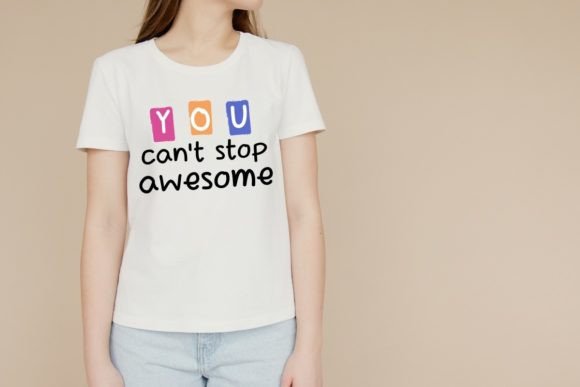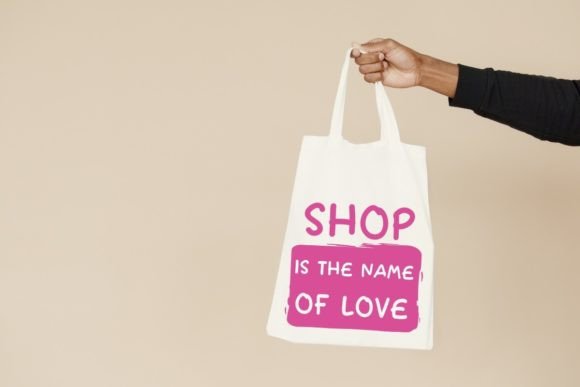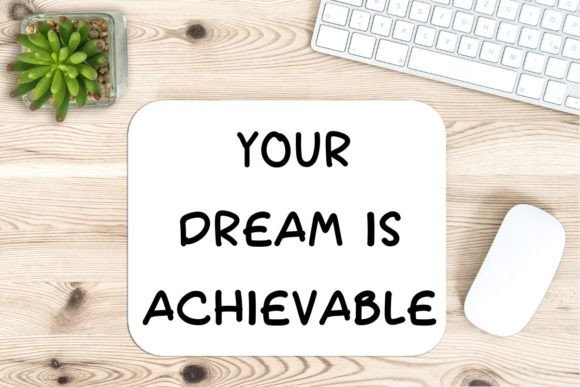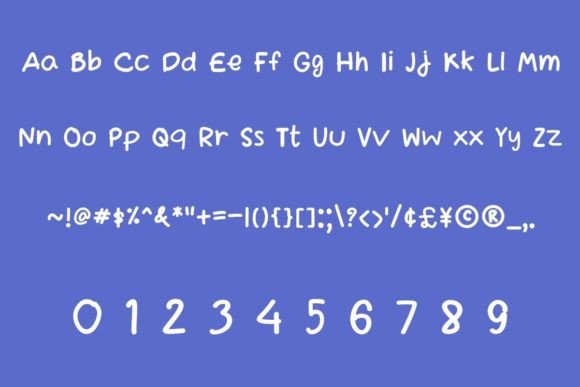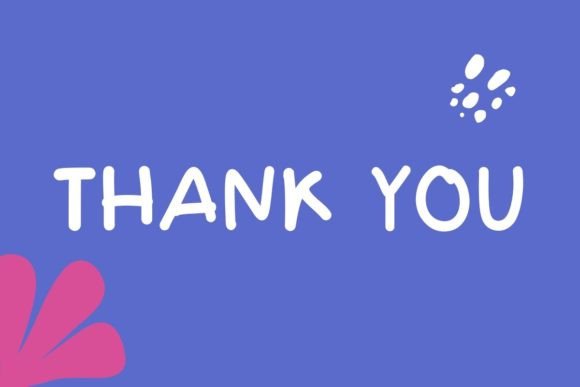
Introduction to Introvert Font
As I sat at my desk, surrounded by scraps of paper and half-finished projects, I stumbled upon the perfect font to bring my creative vision to life – the Introvert Font. There’s something special about discovering a font that captures the essence of your design style, and for me, this handwritten beauty was the perfect match.
Whether you’re a seasoned designer or a DIY enthusiast, the Introvert Font is a valuable addition to your design resource library. Its informal style and casual vibe make it an ideal choice for a wide range of creative projects, from custom mug designs to interior prints. And the best part? It’s available for free download, making it a high-quality resource that won’t break the bank.
With its transparent background and versatile design, the Introvert Font is a game-changer for designers looking to add a personal touch to their work. From shirts and hats to tote bags and wall art, this font is the perfect tool to help you bring your ideas to life.
Key Features of Introvert Font
- Unique, hand-drawn design with a high level of detail, making it a great design resource for creative projects.
- Perfect for designers looking for a unique, high-quality font to add a personal touch to their creative project.
Honest Review: Introvert Font
I recently had the chance to work with the Introvert Font in a creative project, and I’m excited to share my honest thoughts. As a designer, I appreciate high-quality fonts that make a statement, and Introvert Font certainly delivers.
- ✨ What works well: The font’s unique, minimalist design is perfect for creating a clean and modern aesthetic. The transparent background allows for seamless integration into various design backgrounds, making it a versatile design resource.
However, I did encounter a few limitations: ⚠️ The font’s limited character set can make it challenging to work with for more complex projects. Additionally, the font’s simplicity may not be suitable for designs that require a bold, eye-catching statement.
Overall, I’m impressed with the Introvert Font’s quality and versatility. While it may not be the best choice for every project, it’s a great addition to any designer’s toolkit. With its transparent background and modern aesthetic, it’s a solid design resource for anyone working on a creative project.
The Introvert Font is a versatile design resource that can be used for a wide range of creative projects, from social media graphics to business presentations. It’s a great choice for designers who want a high-quality, unique font that will make their designs stand out.